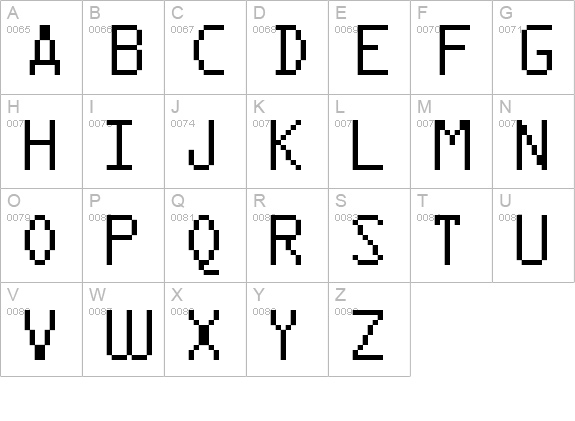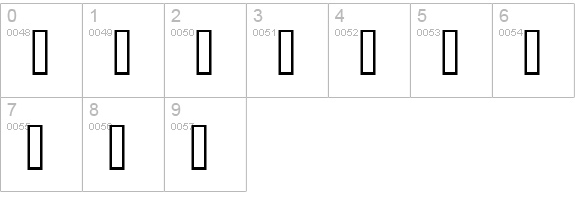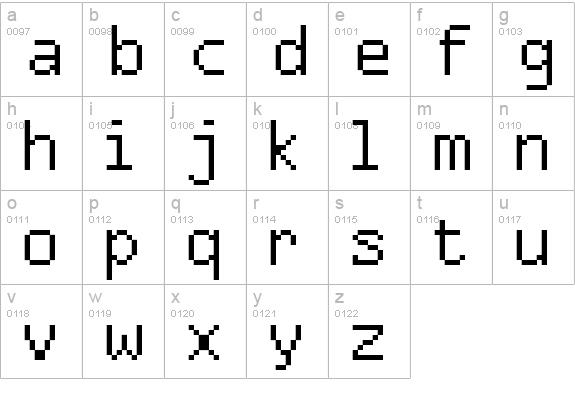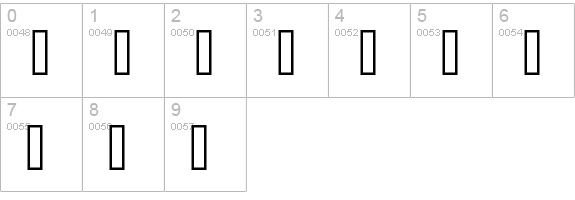
The FFF Agent Trial font is a versatile and stylish typeface that exudes modernity and sophistication. With its clean lines and sharp edges, this font is perfect for a wide range of projects, from branding to editorial design. The best part? It's completely free for personal and commercial use. You can freely download the FFF Agent Trial font at FontsMarket.com and elevate your designs with its sleek and professional appearance. Don't miss out on this opportunity to add a touch of elegance to your projects with this stunning font.